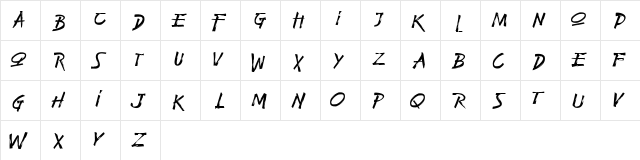
Bodhi Regular
| Foundry | Arthy |
| Designer | Arthy |
Bodhi is a composed and adaptable typeface that performs quietly and consistently across a wide range of design contexts.